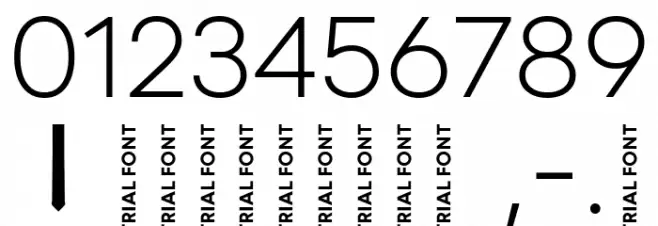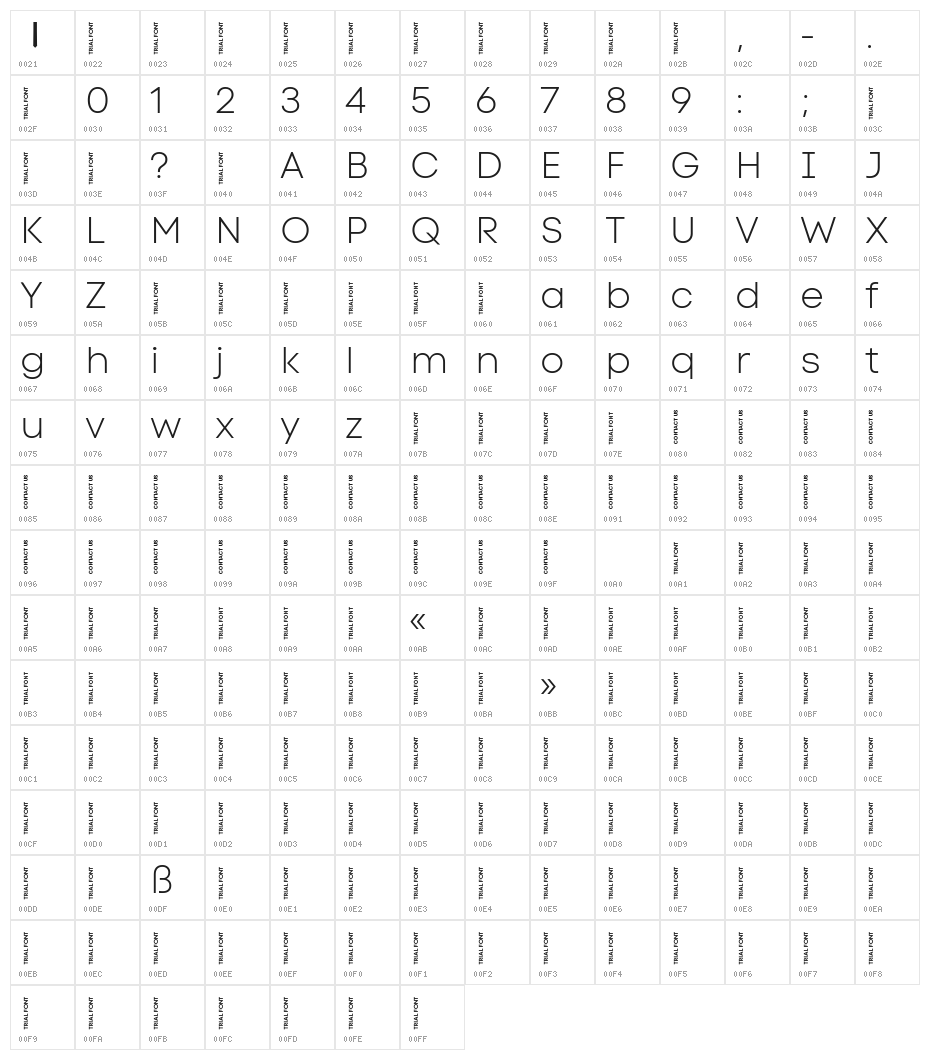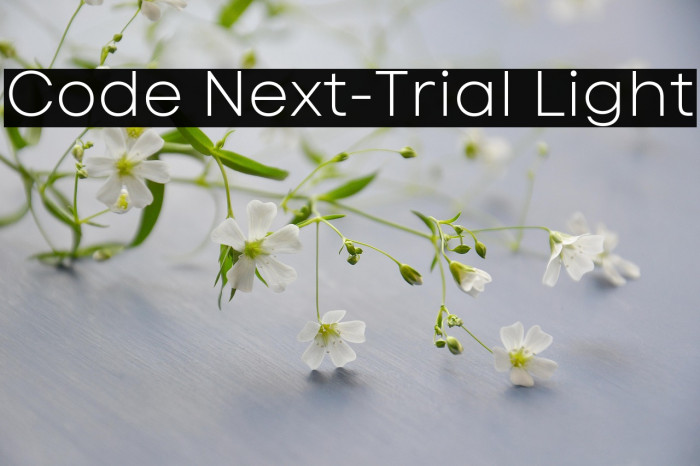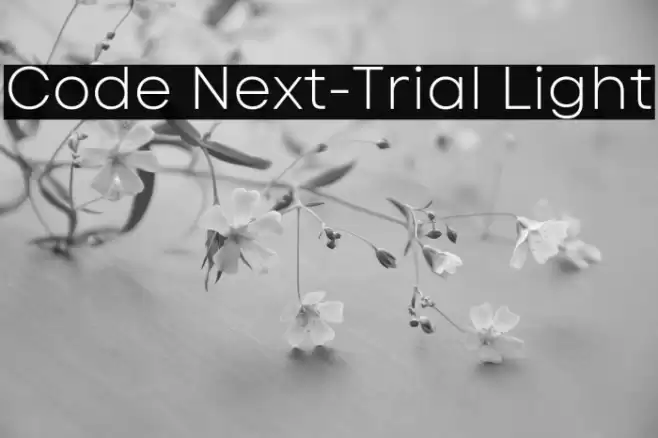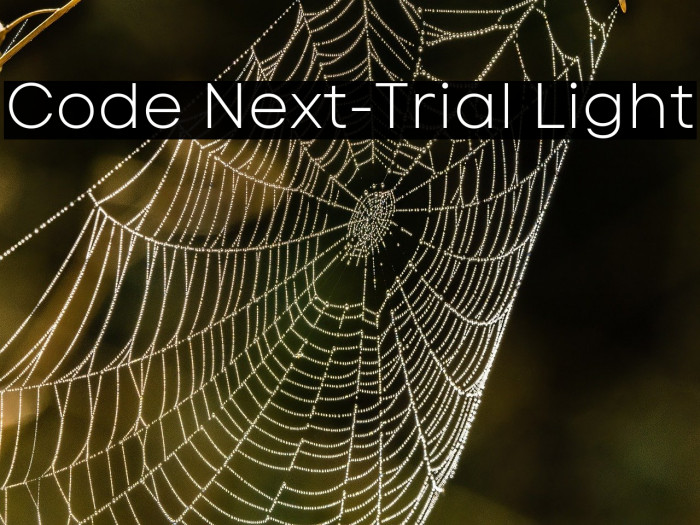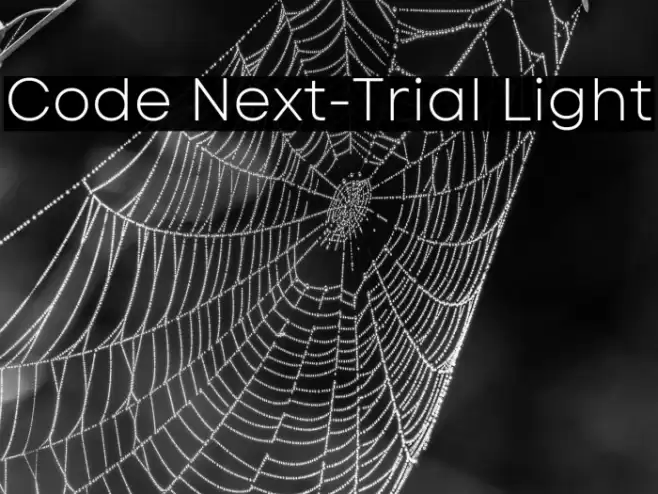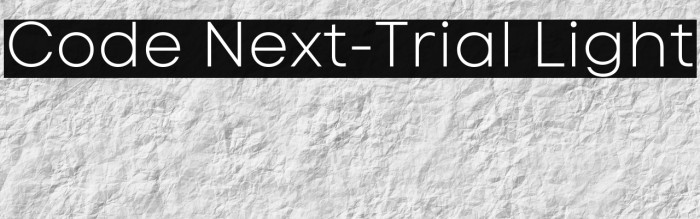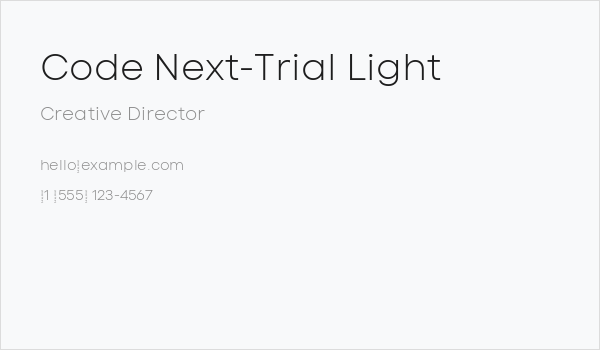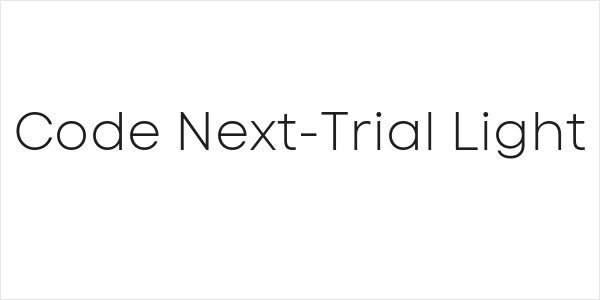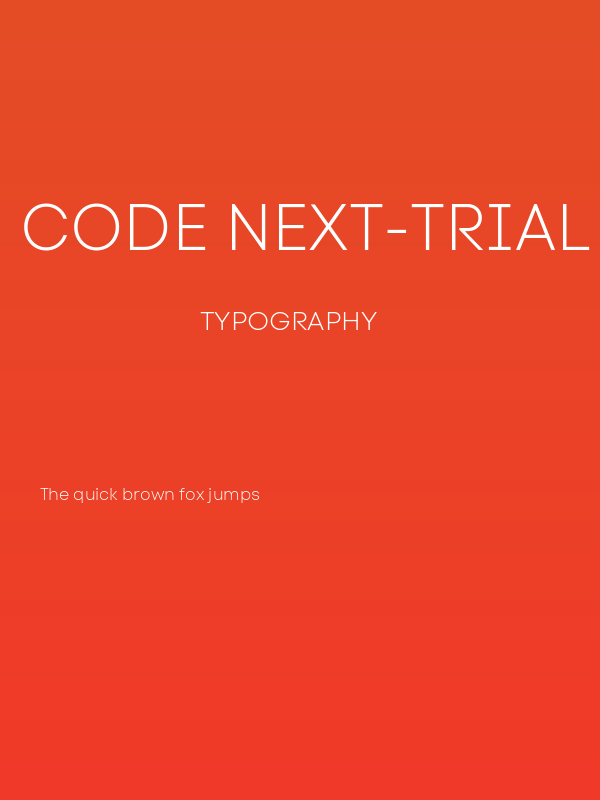
Code Next-Trial Light Font
Code Next-Trial Light Description
This font features a clean and modern sans-serif design with a geometric structure. The characters are well-proportioned, offering a balanced and harmonious appearance. The uppercase letters are bold and assertive, while the lowercase letters maintain a friendly and approachable look. The numerals are clear and easy to read, making them suitable for various applications. The special characters are distinct and integrate seamlessly with the rest of the typeface. Overall, this font exudes a contemporary and professional vibe, making it versatile for both digital and print media.
| Proposed Projects | Ideal for branding, web design, corporate materials, and editorial layouts. |